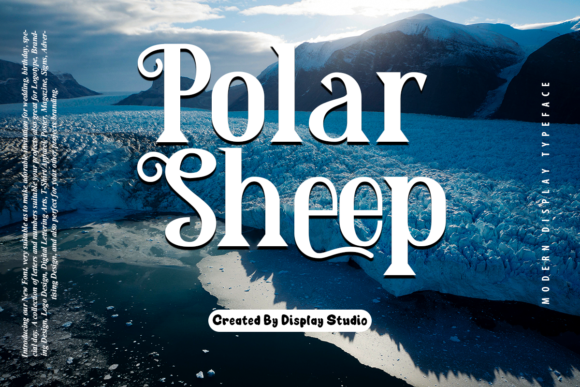
**Introducing Polar Sheep Font: The Enchanting Serif for Frost-Kissed Creations**
Prepare to be captivated by Polar Sheep, the enchanting serif font that will transform your designs into wintery masterpieces. With its delicate yet bold strokes, this font exudes the spirit of cozy sweaters and the magic of falling snow.
Whether you're crafting enchanting storybooks, designing heartwarming stationery, or creating festive marketing campaigns, Polar Sheep will elevate your projects with an air of elegance and charm. Its versatility allows it to dance across a myriad of creative endeavors, from wintry invitations to festive holiday cards.
Join us in embracing the enchanting allure of Polar Sheep, and let your designs blossom into frost-kissed wonders that will leave an unforgettable mark.
Created by the talented DisplayStudio_, Polar Sheep is meticulously crafted to ignite your imagination and bring your creative visions to life.